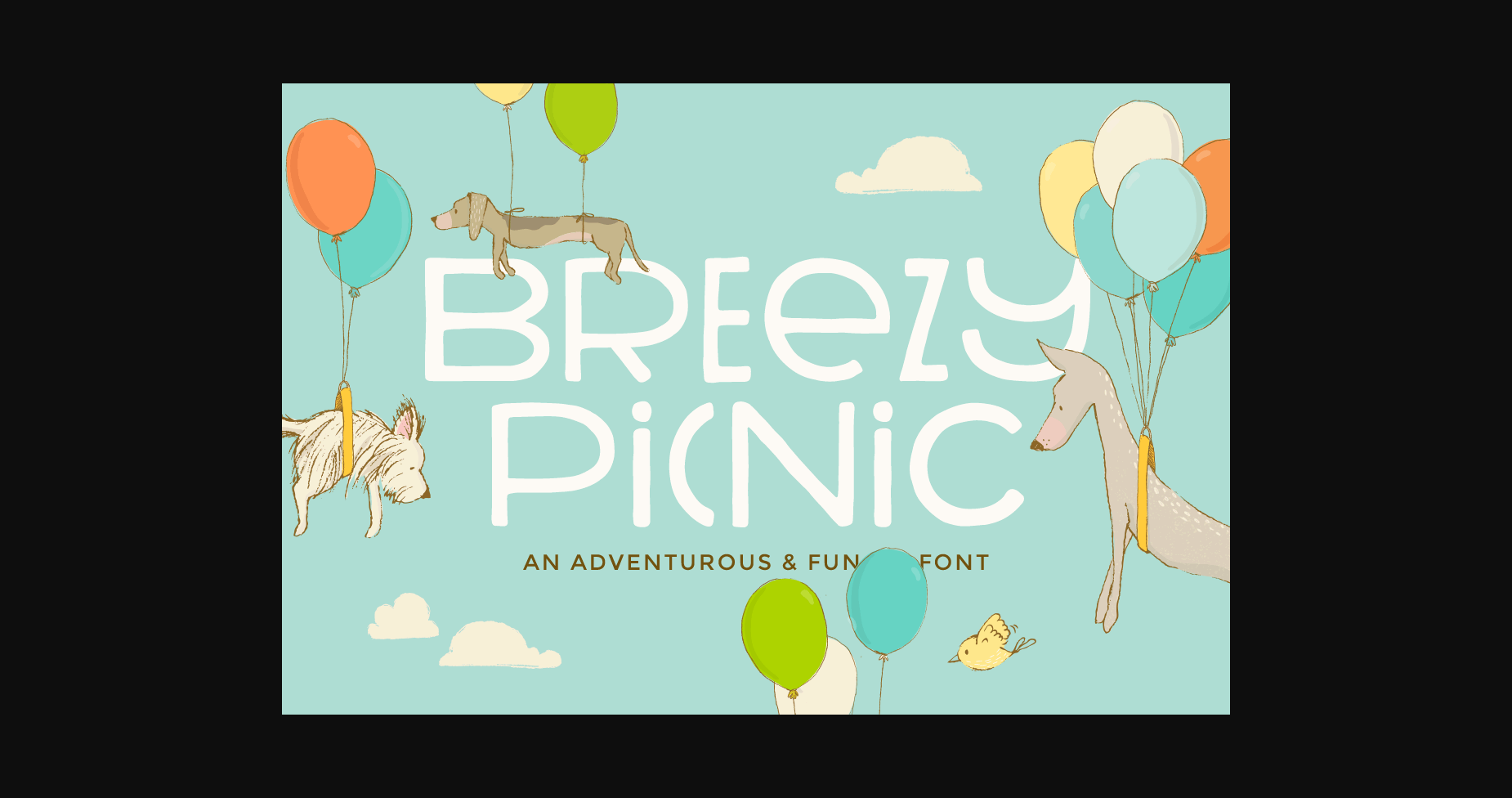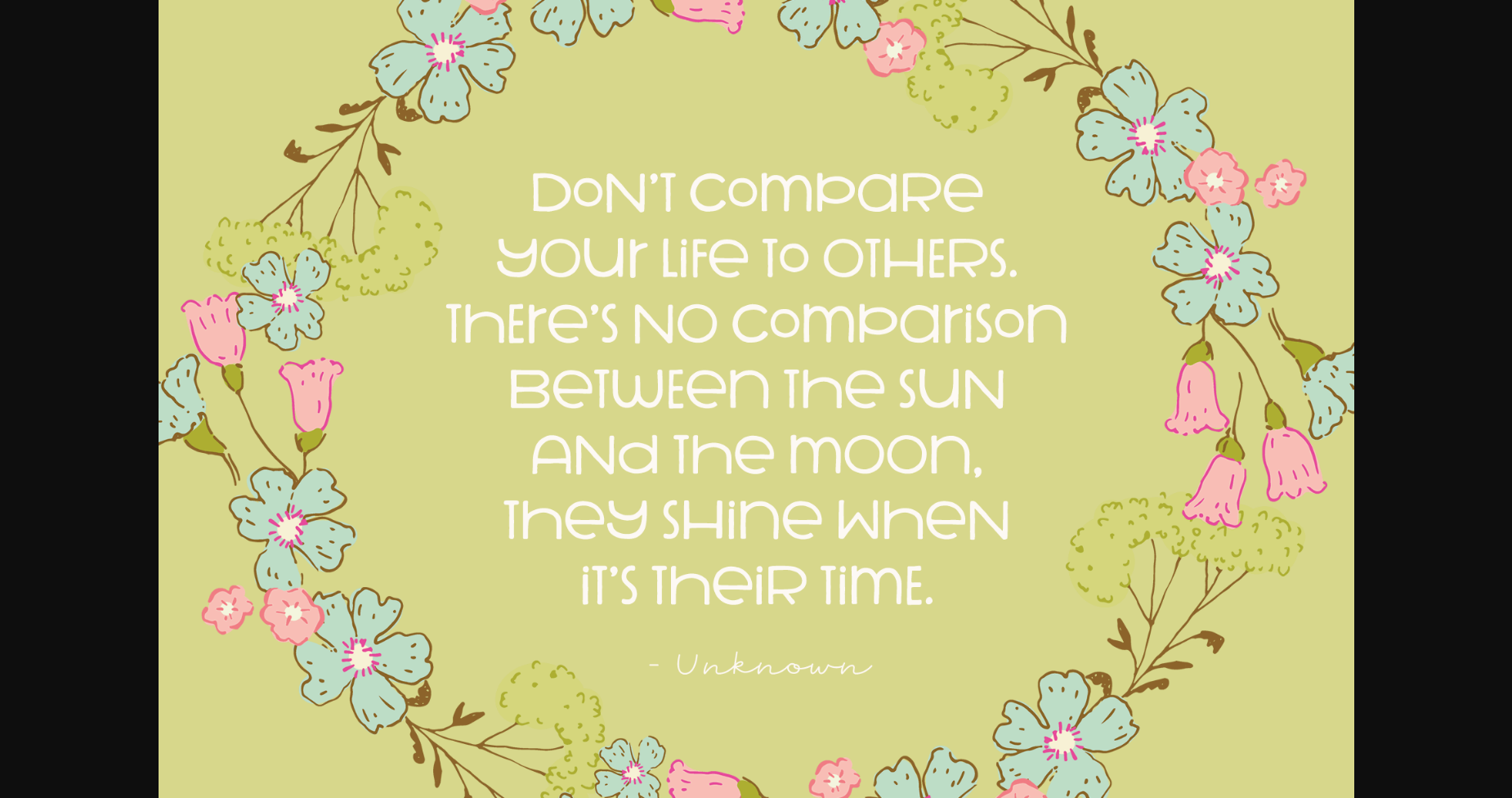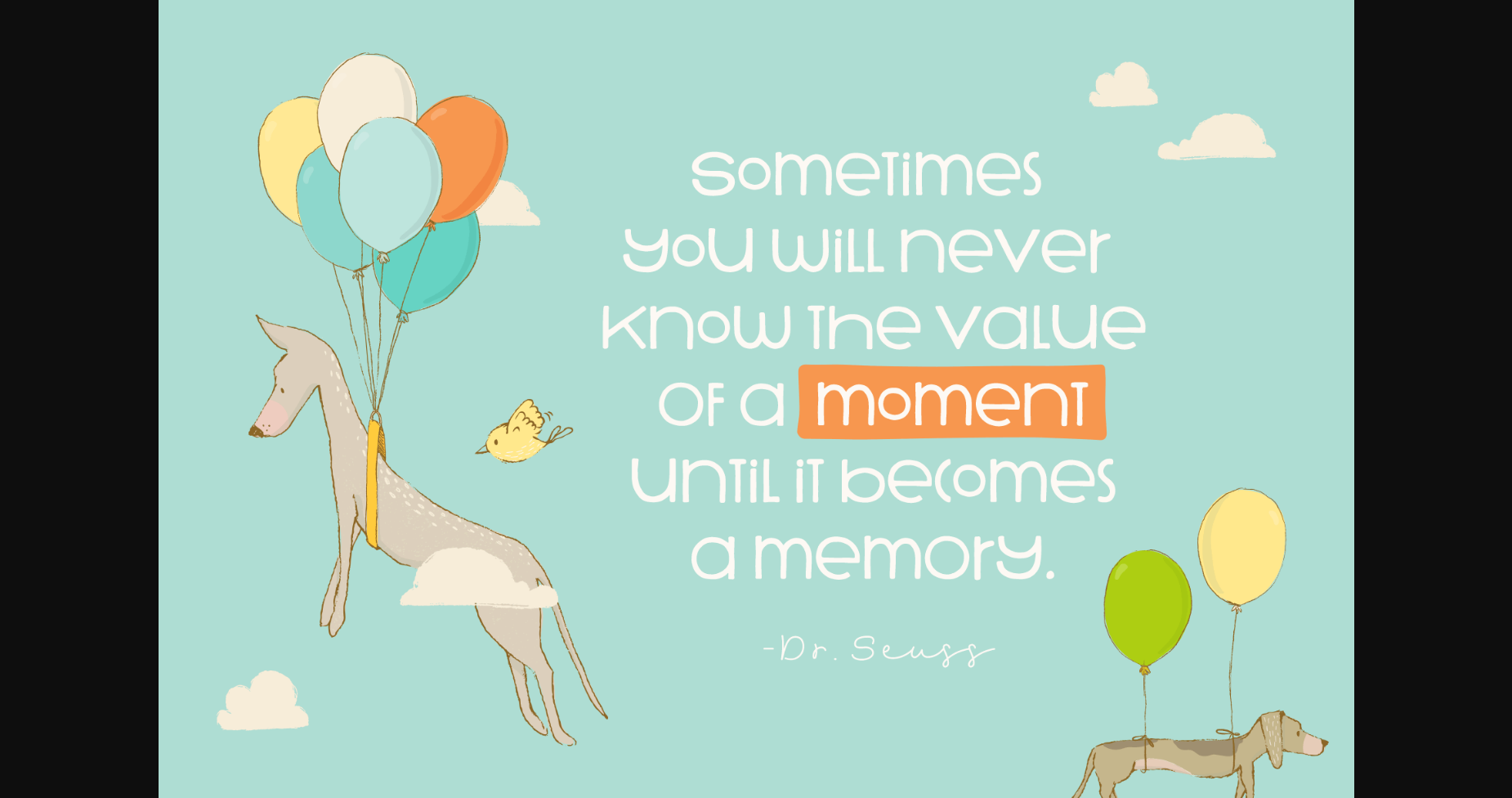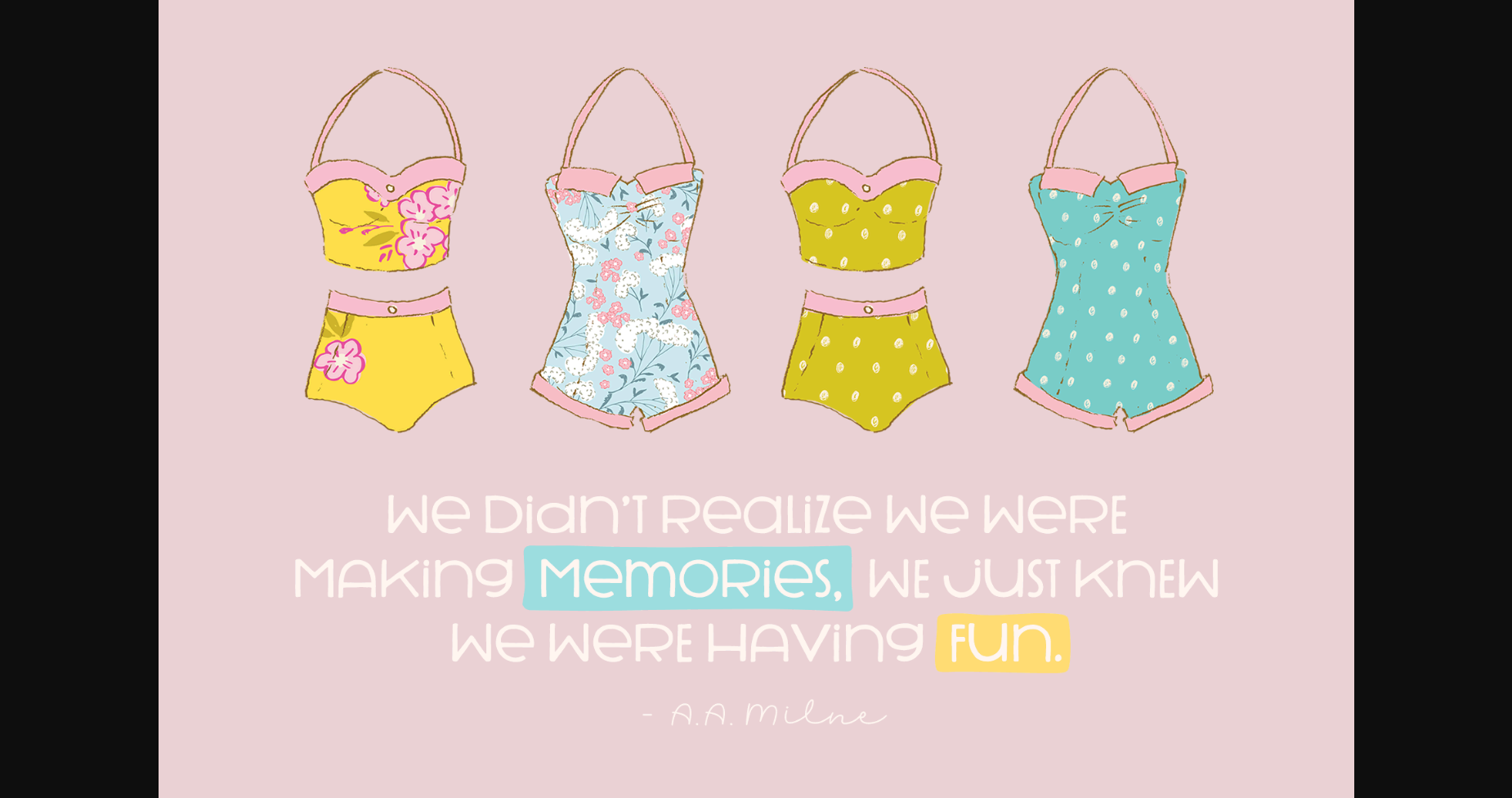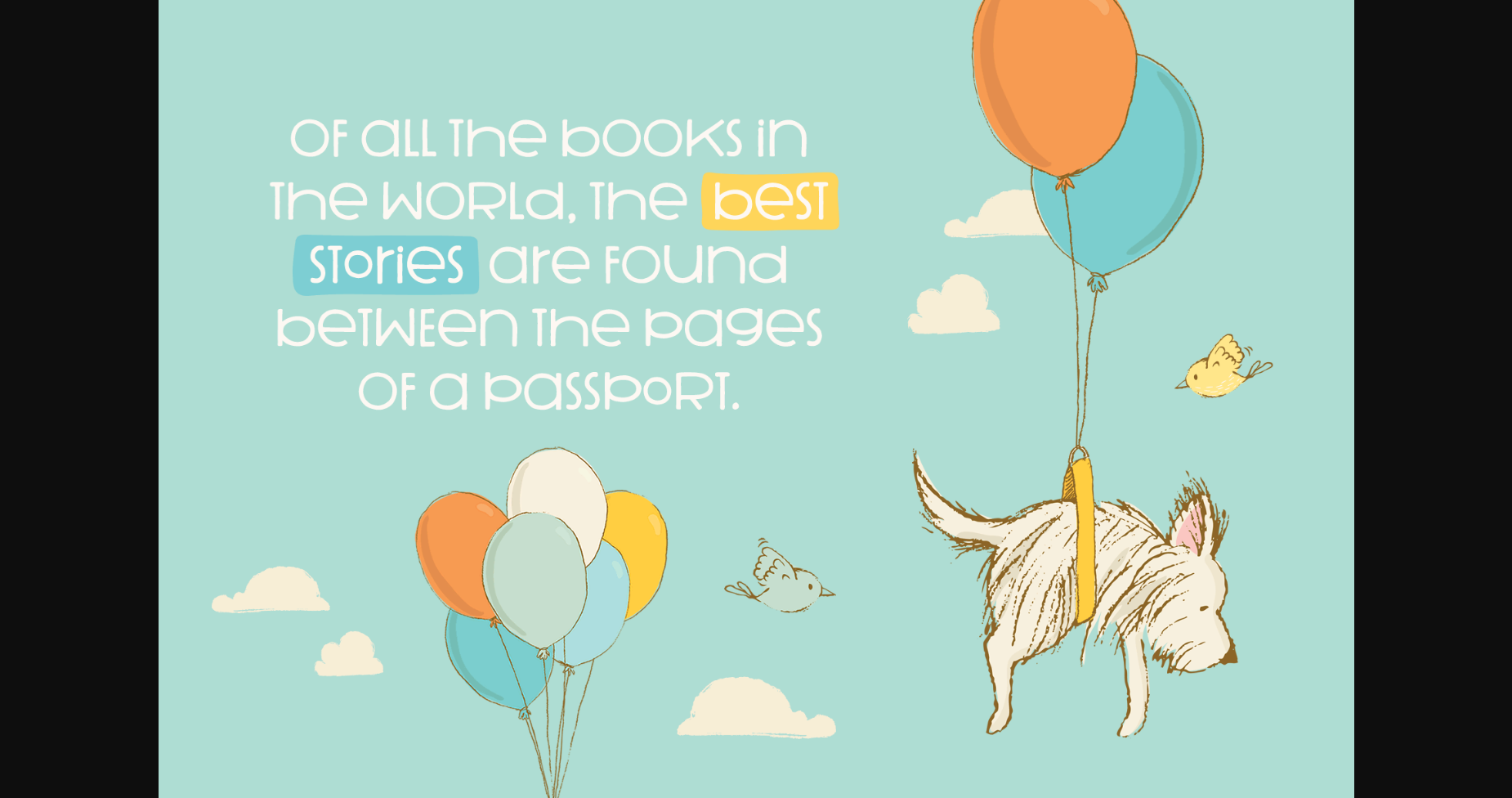
About Breezy Picnic Font
Breezy Picnic is a sweet and simple sans font. It’s hand-drawn style makes a statement at large sizes, but it’s thin lines and wide characters keep it readable even at small sizes. Mixing the upper and lowercase letters help give this font a unique and fun style.